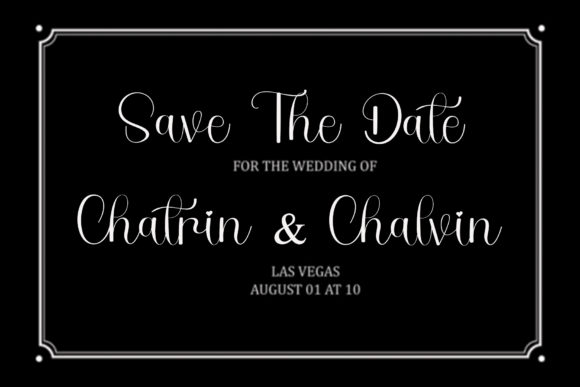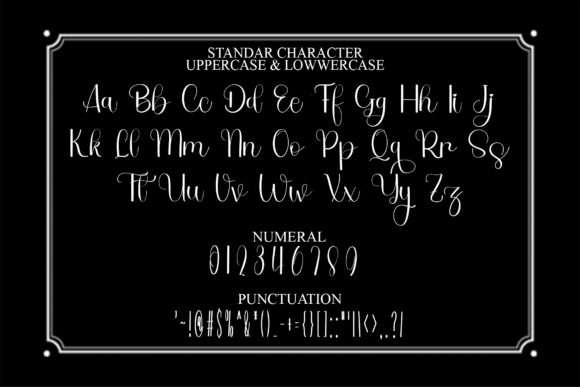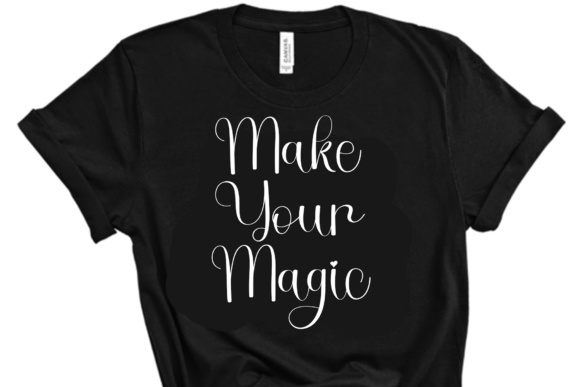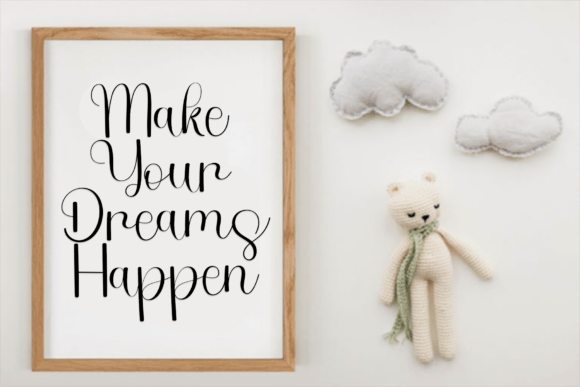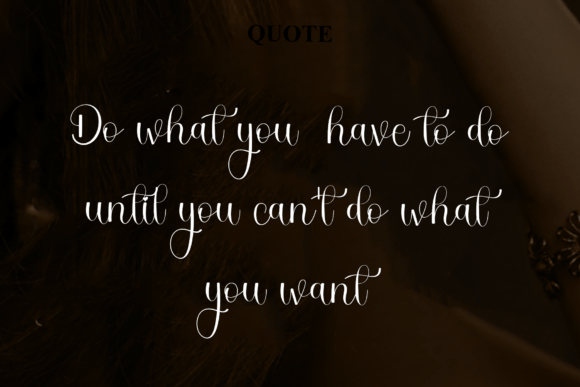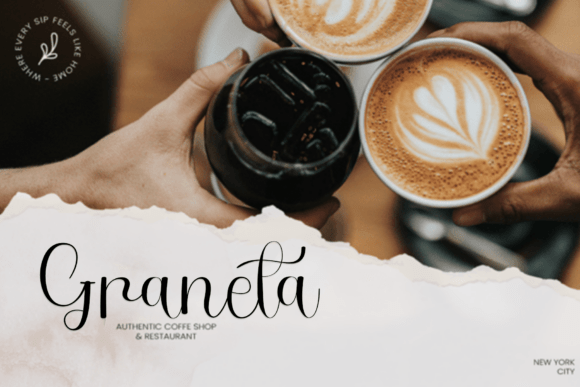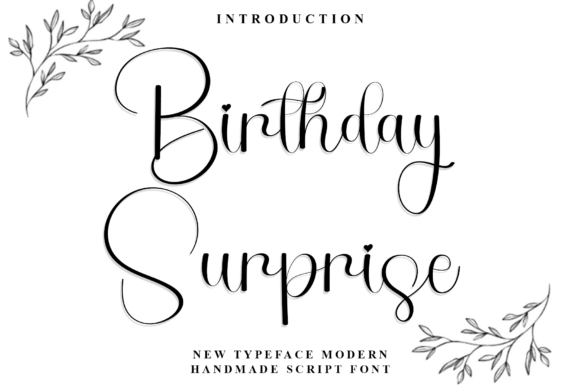
Introducing the Birthday Surprise Font: A Playful and Creative Typeface for Your Special Occasions
Are you looking for a font that can add a personal touch to your birthday invitations, social media graphics, or personal projects? Look no further than the Birthday Surprise Font, a casual and creative typeface that exudes warmth and friendliness. This charming font is perfect for designers and crafters who want to create unique and eye-catching designs that showcase their personality.
The Characteristics of the Birthday Surprise Font
The Birthday Surprise Font is a hand-drawn typeface that features round, playful strokes that create a relaxed and approachable feel. Its casual and creative design makes it perfect for a variety of applications, from personal projects to social media graphics. The font’s charming aesthetic adds a fun and unique touch to any design, making it ideal for designers and crafters who want to stand out from the crowd.
What Makes the Birthday Surprise Font Special?
The Birthday Surprise Font is a versatile typeface that can be used in a variety of design applications. Whether you’re a designer looking to create custom birthday invitations or a crafter looking to add a personal touch to your DIY projects, this font is perfect for you. Its playful and creative design makes it ideal for:
- Birthday invitations and cards
- Personal projects, such as scrapbooking and journaling
- DIY crafts, such as party decorations and gift tags
Tips for Getting the Most Out of the Birthday Surprise Font
Here are a few tips for getting the most out of the Birthday Surprise Font:
- Experiment with different font sizes and colors to create a unique look
- Pair the font with other playful and creative typefaces to add visual interest
- Use the font to create custom graphics and illustrations for your designs
- Don’t be afraid to get creative and try new things – the Birthday Surprise Font is all about having fun and expressing yourself
The Birthday Surprise Font is a playful and creative typeface that’s perfect for designers and crafters who want to add a personal touch to their designs. Its charming, hand-drawn aesthetic and standard PUA Encoded glyphs make it a versatile font that can be used in a variety of design applications. Whether you’re creating birthday invitations, social media graphics, or personal projects, the Birthday Surprise Font is sure to bring a smile to your face and a touch of personality to your designs.